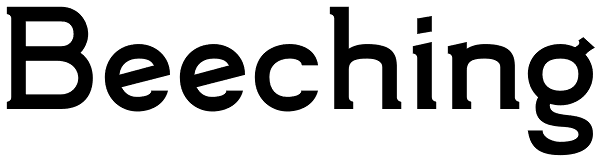
Beeching
Beeching is a family of six typefaces designed to combine extreme legibility with a hint of retrospective character. It is inspired by the lettering used in the Leslie Green designed stations of the London Underground and is as up to date today as...